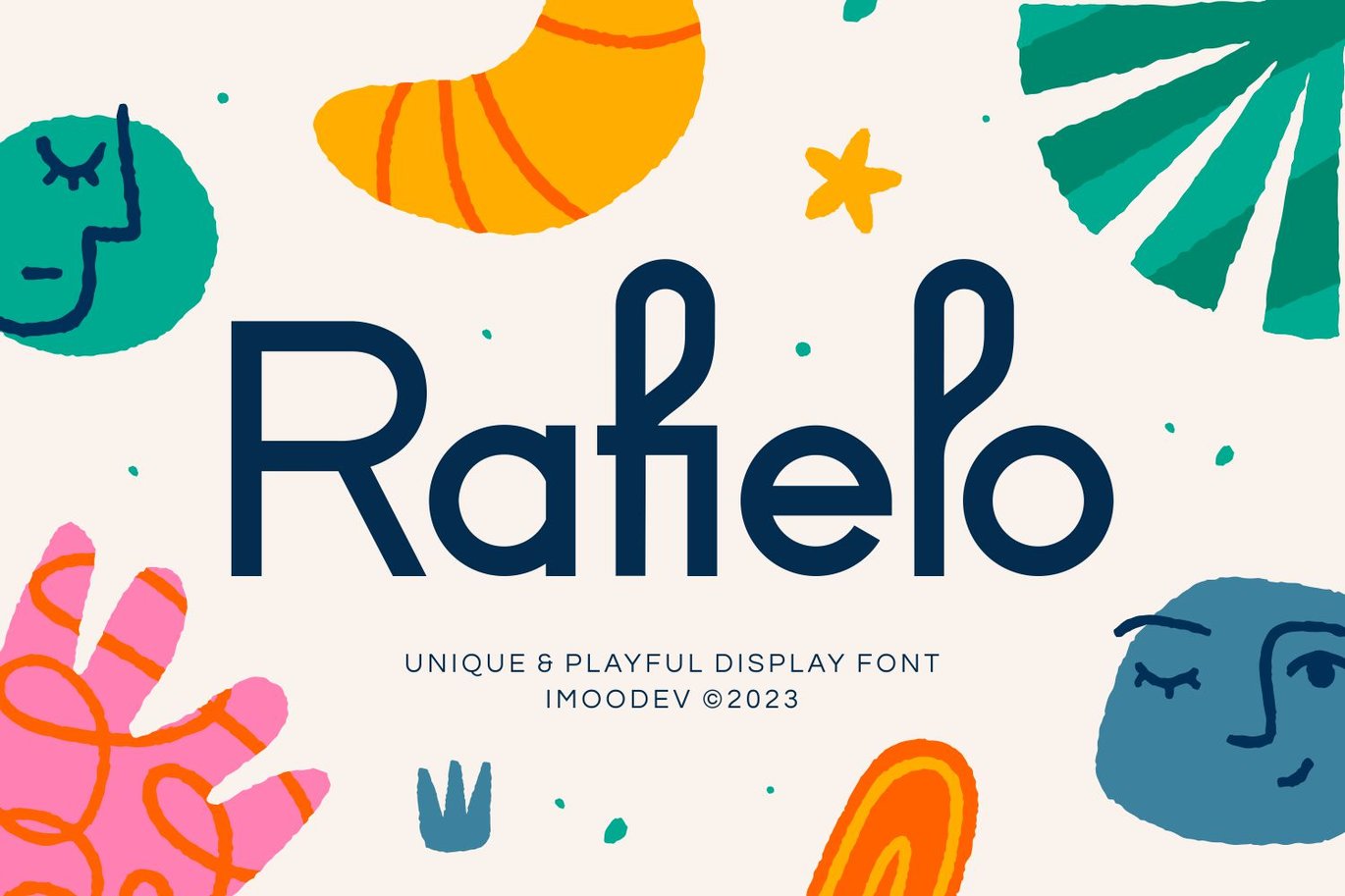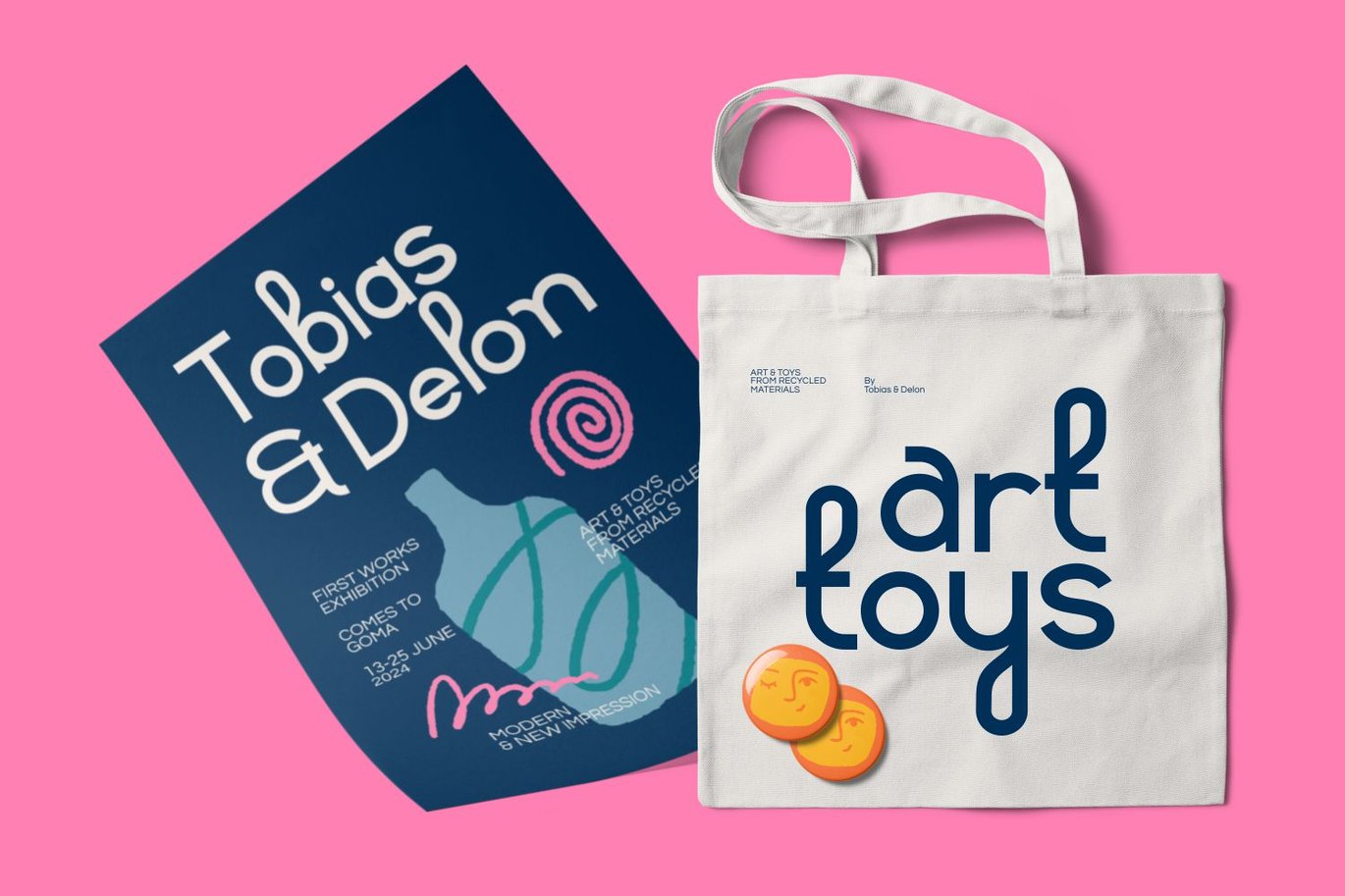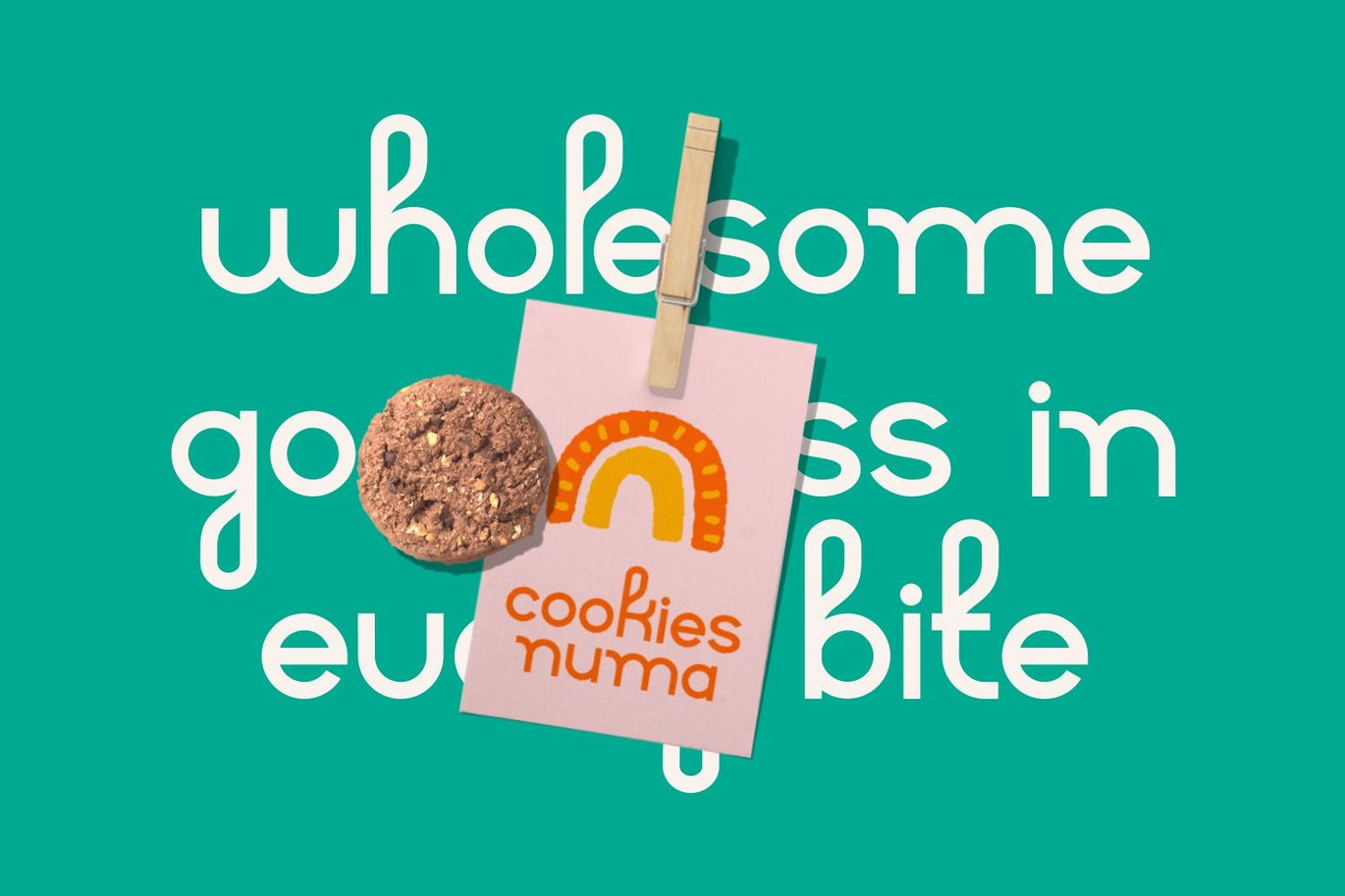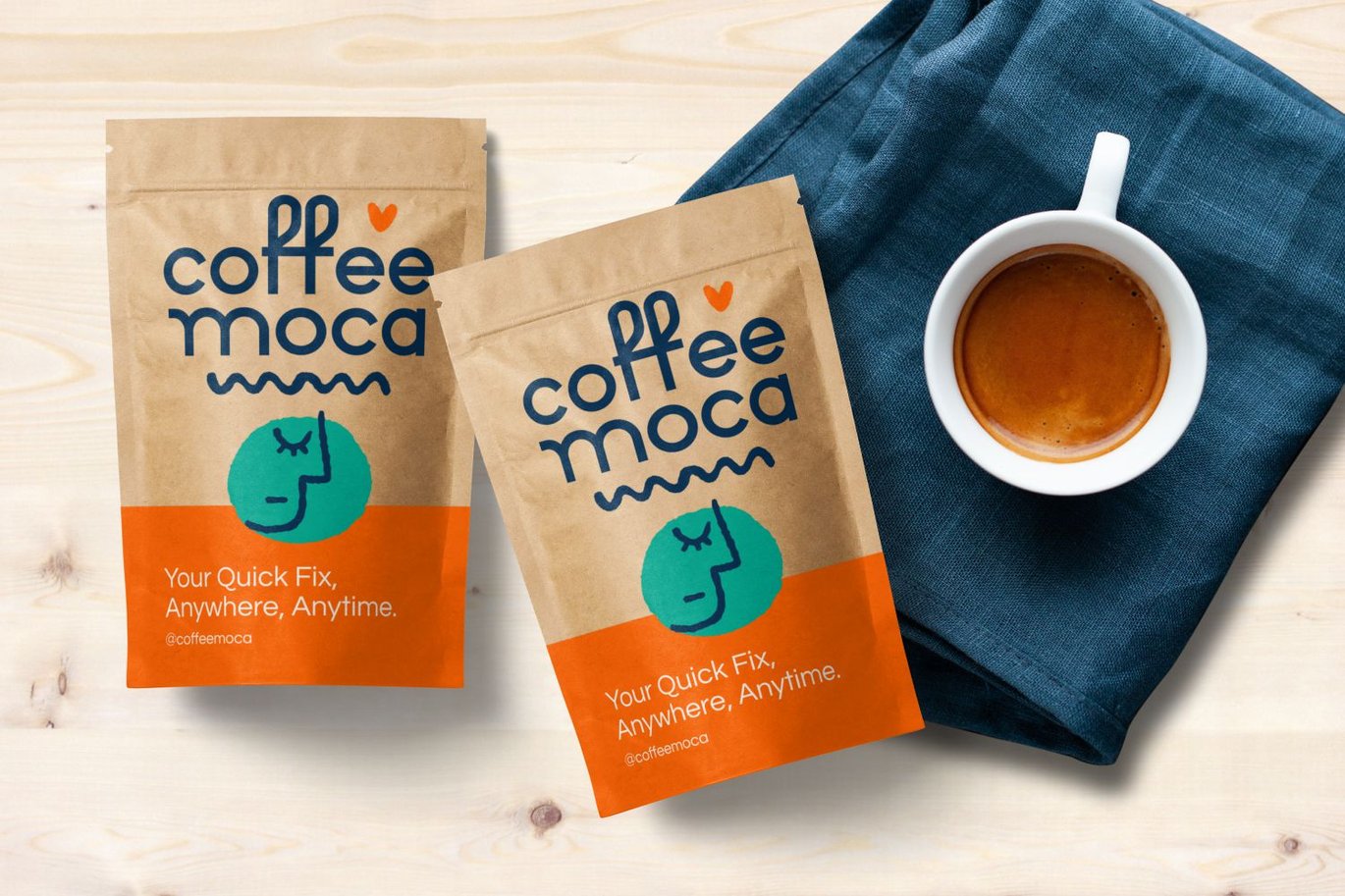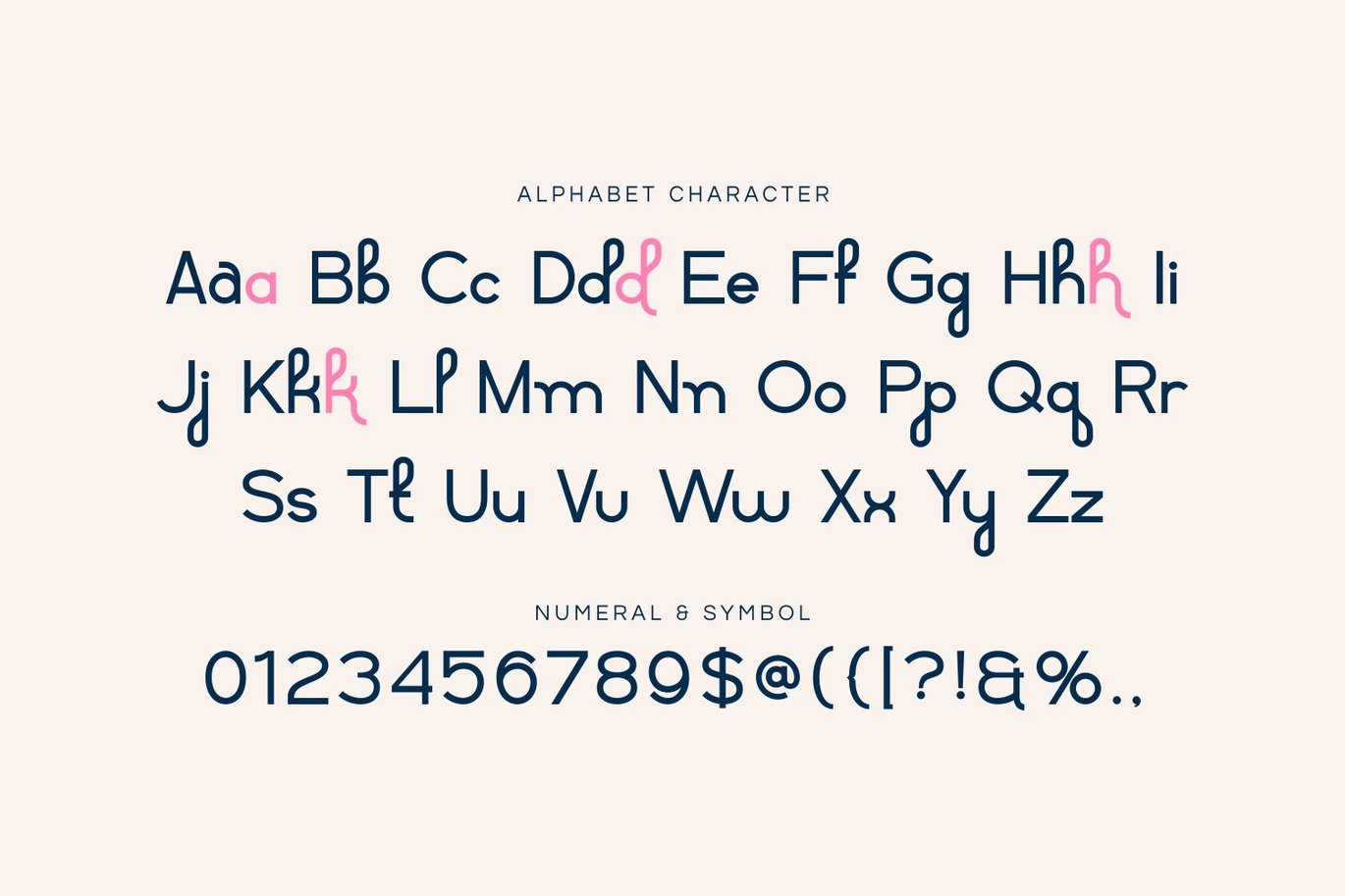
Rafielo – Kids Playful Font
Rafielo born from hand-lettered style combines fun and playful.
Great for stand-out quotes, playful branding, children’s books, logo designs, quirky greeting cards, product packaging, merchandise and so much more!